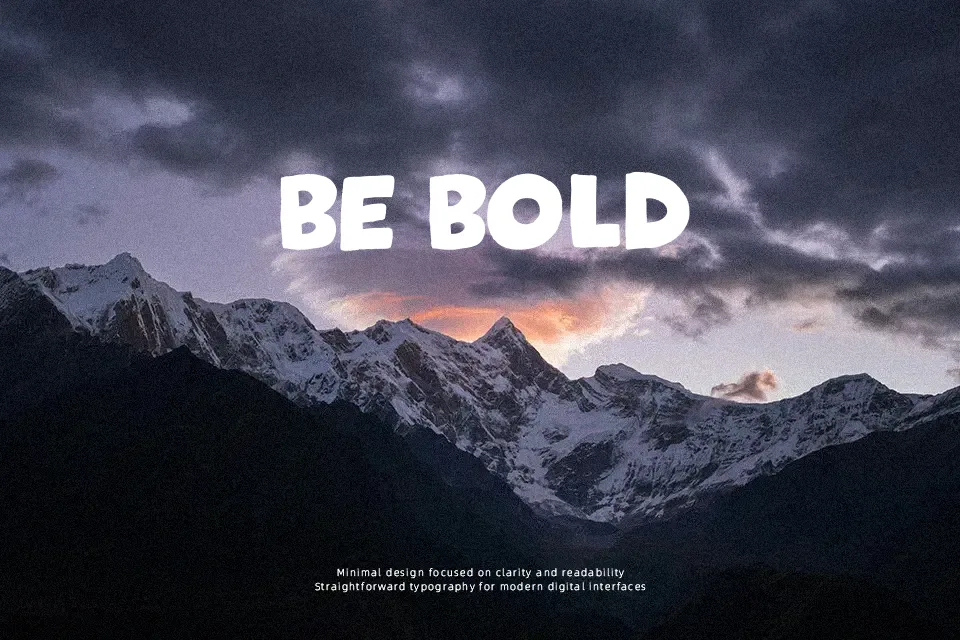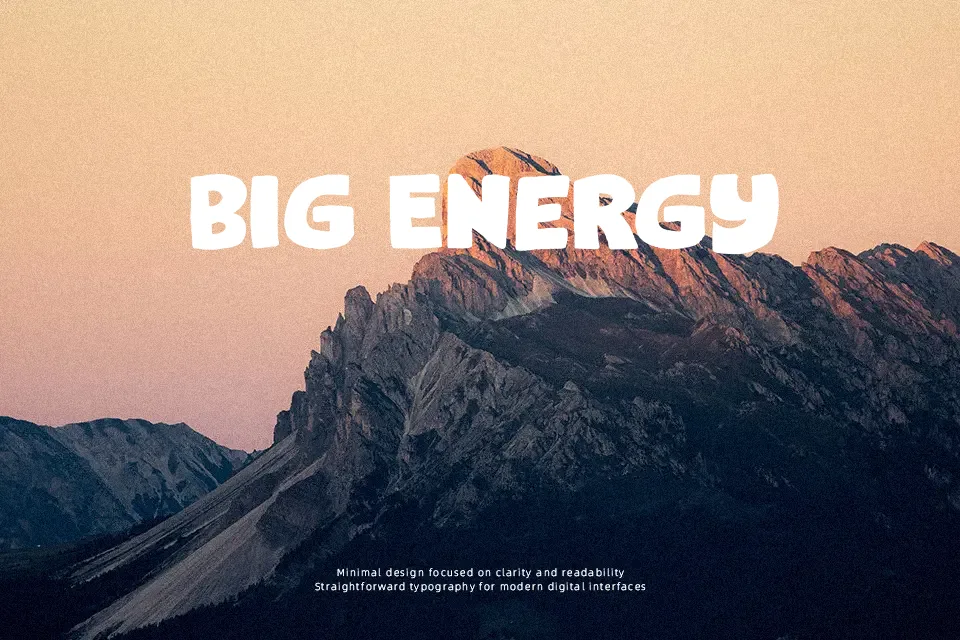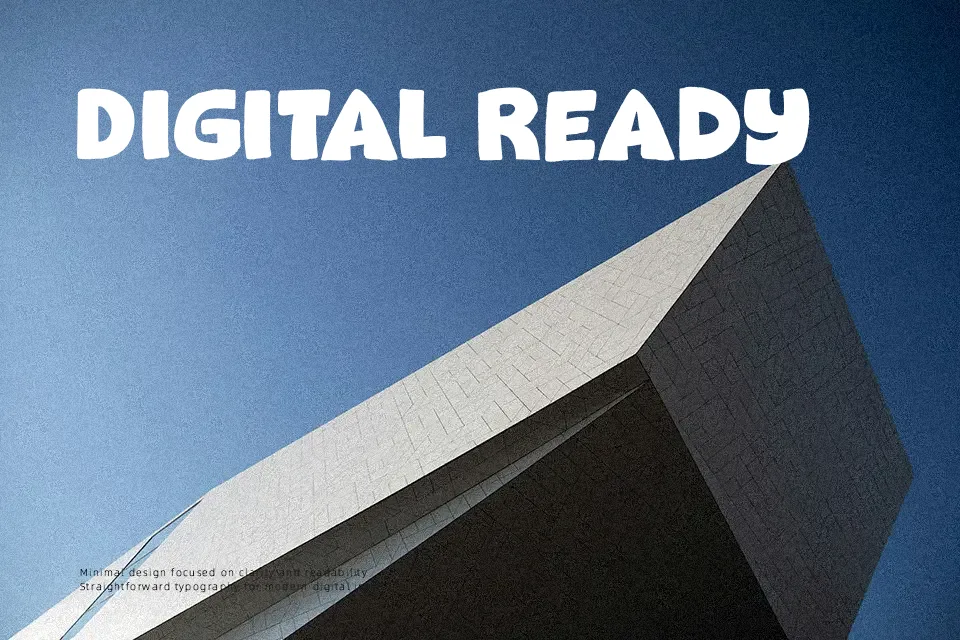
Takeshi Font
Designed by Hanoded
Takeshi Font delivers a bold, handcrafted display aesthetic built around heavyweight strokes, expressive uneven contours, and lively informal proportions. Moderate internal character spacing keeps the robust shapes separated, though the organic rhythm is clearly optimized for short, impactful statements rather than body text. The letterforms provide substantial visual weight that commands attention in packaging design, video title sequences, and streetwear apparel graphics. However, the prominent irregularity of the glyphs reduces clarity when scaled down to smaller sizes, making extended reading difficult in compact editorial columns. The design functions most effectively when showcased prominently as an artistic focal headline.
Best For: streetwear apparel graphics, animated video title cards, craft beverage packaging, music festival flyers
Not Ideal For: continuous reading passages, dense spreadsheet tables, mobile app body copy, legal documents
Perfect for branding, headline, and packaging, with a artistic and brush style.